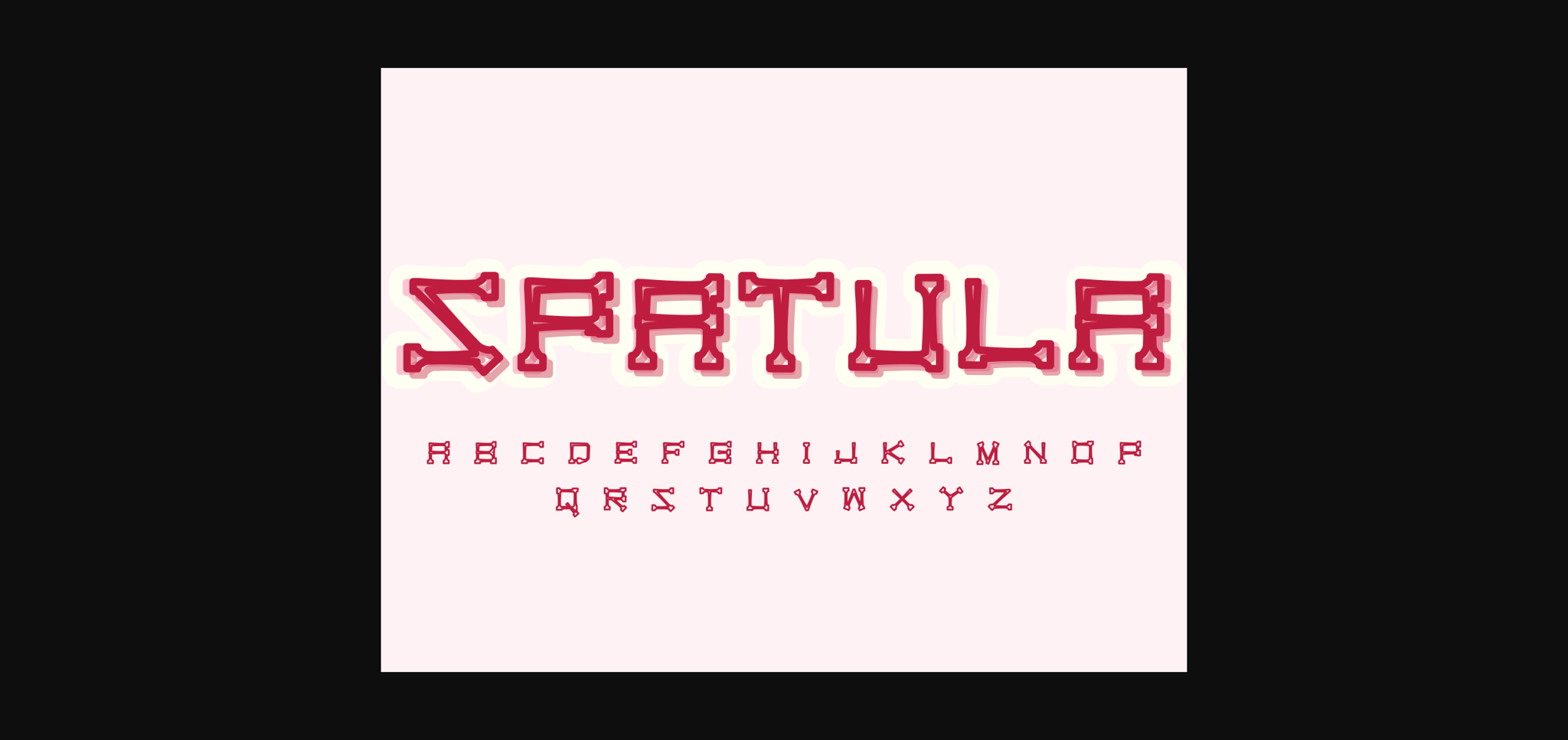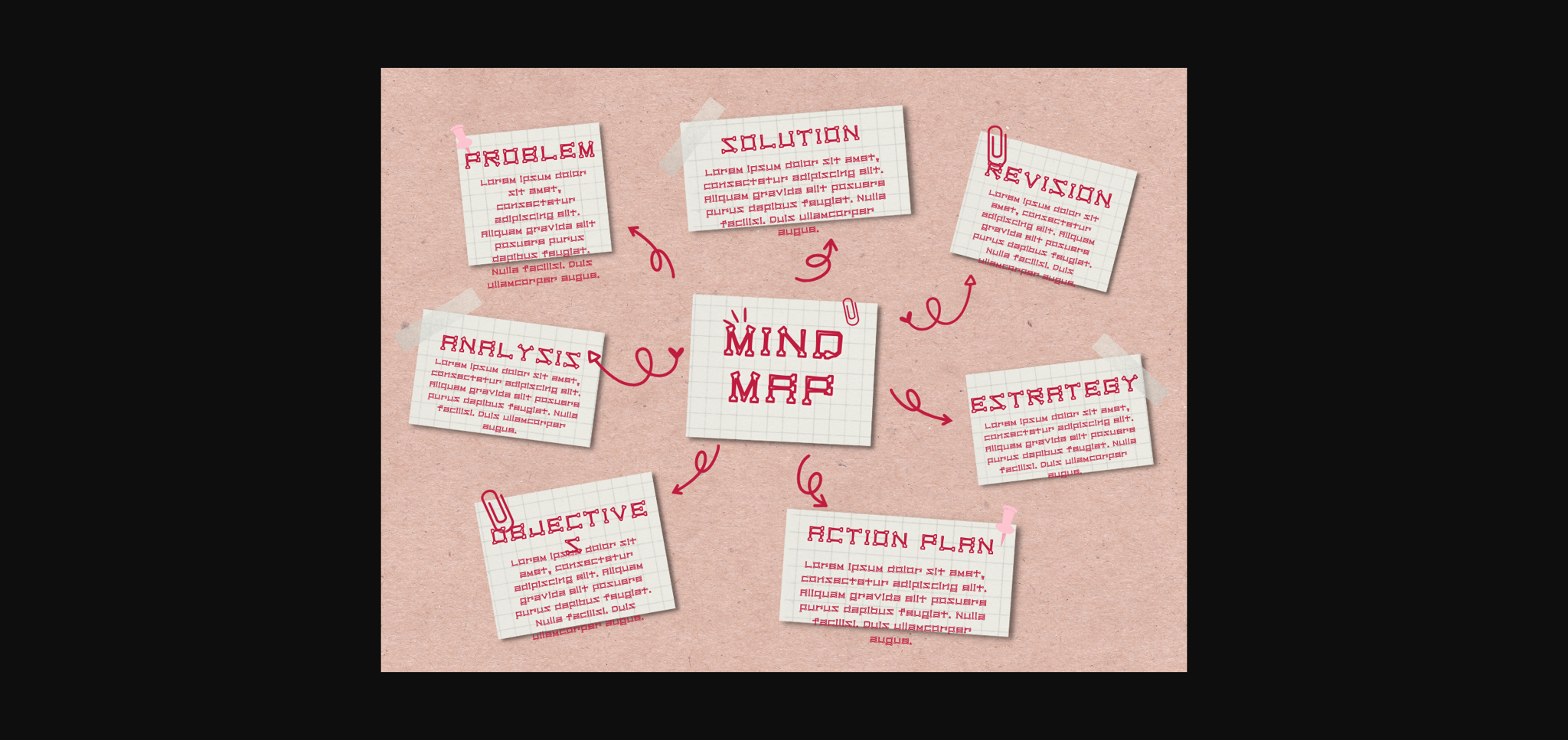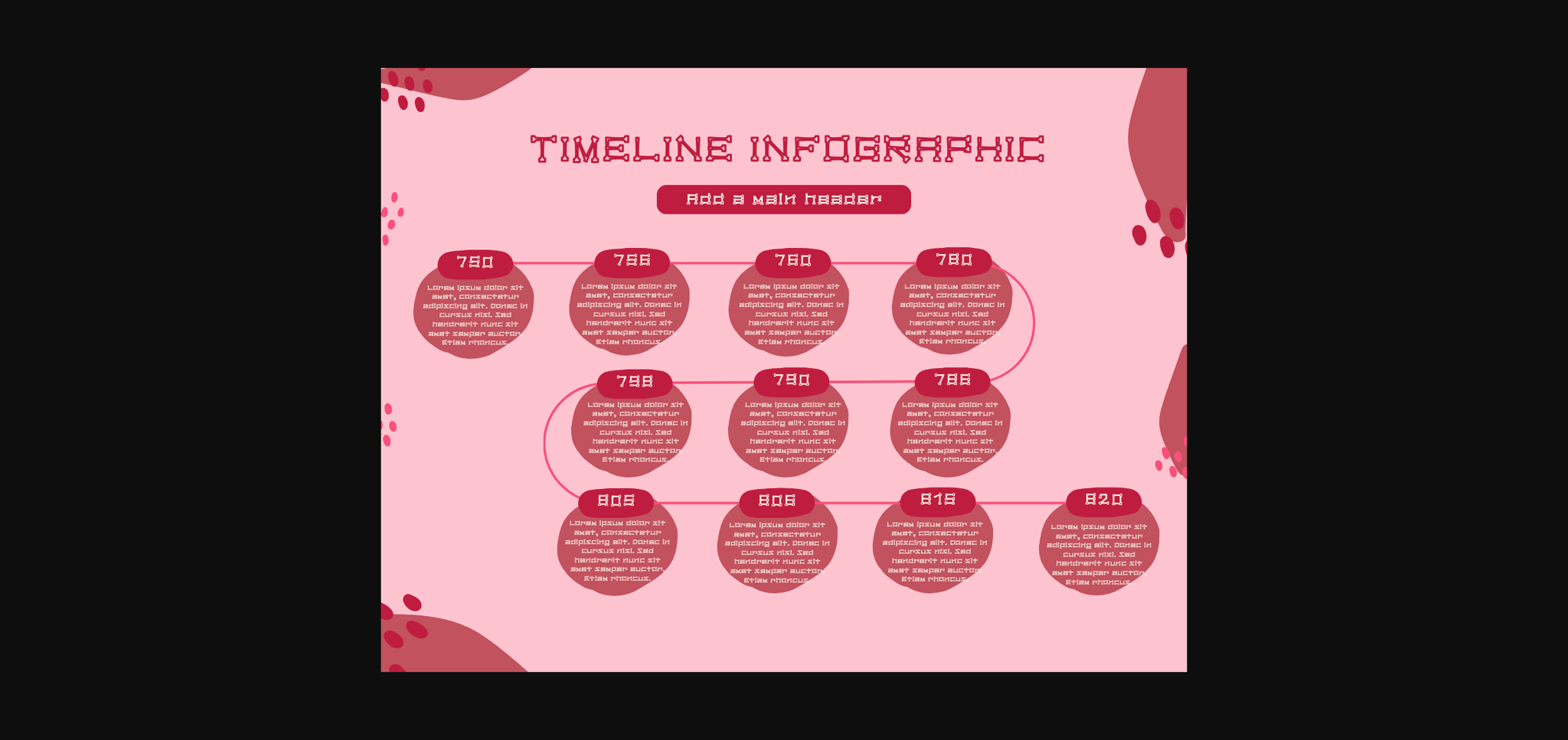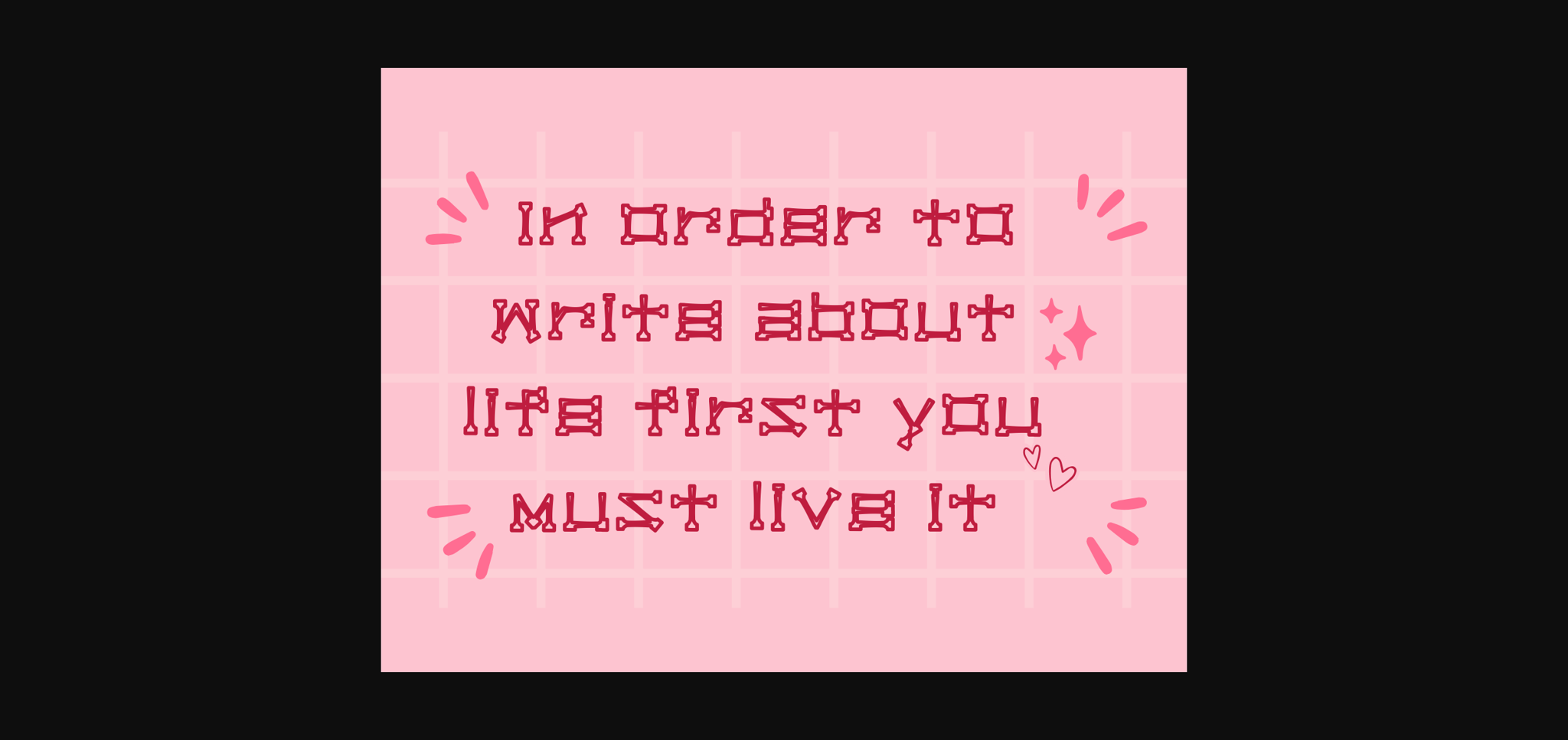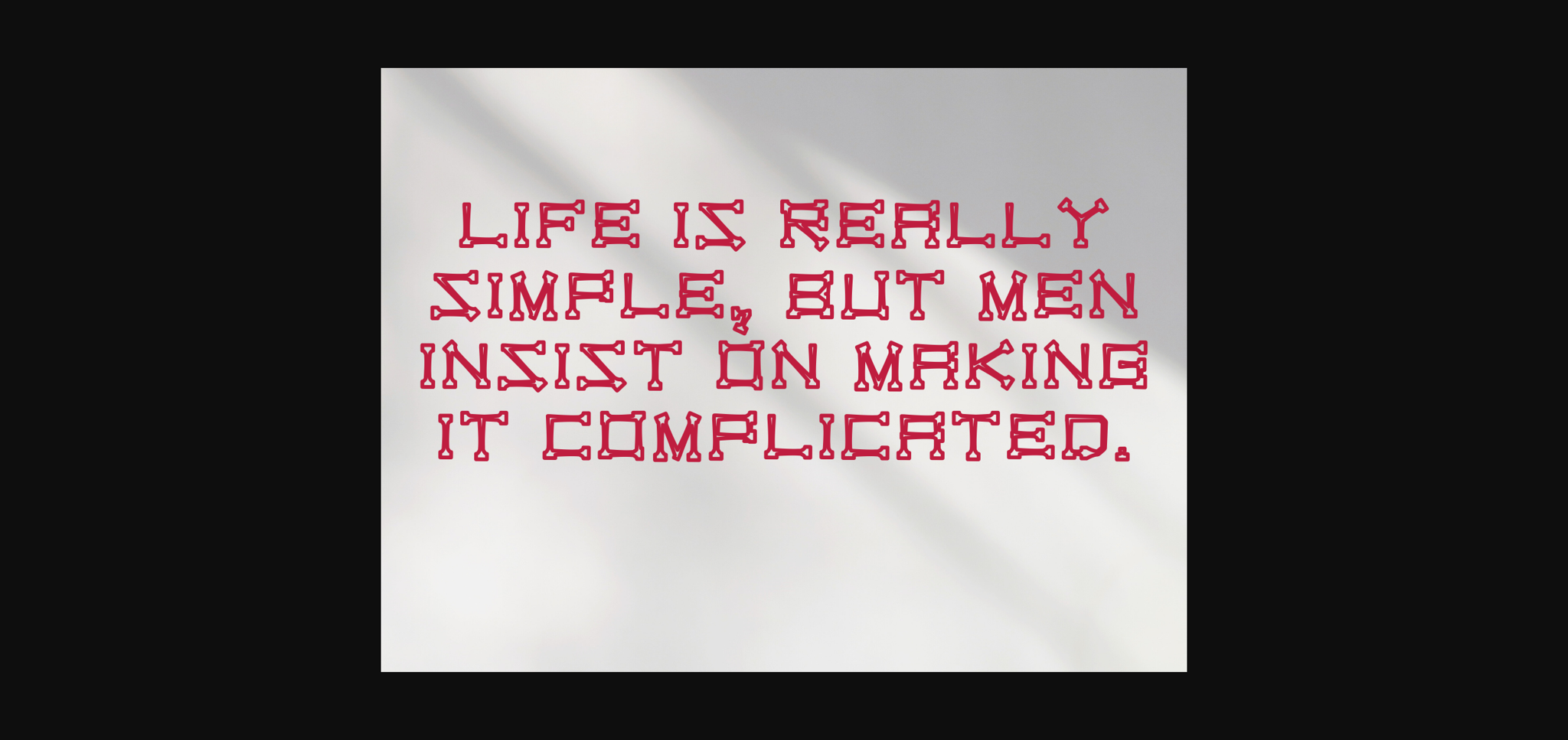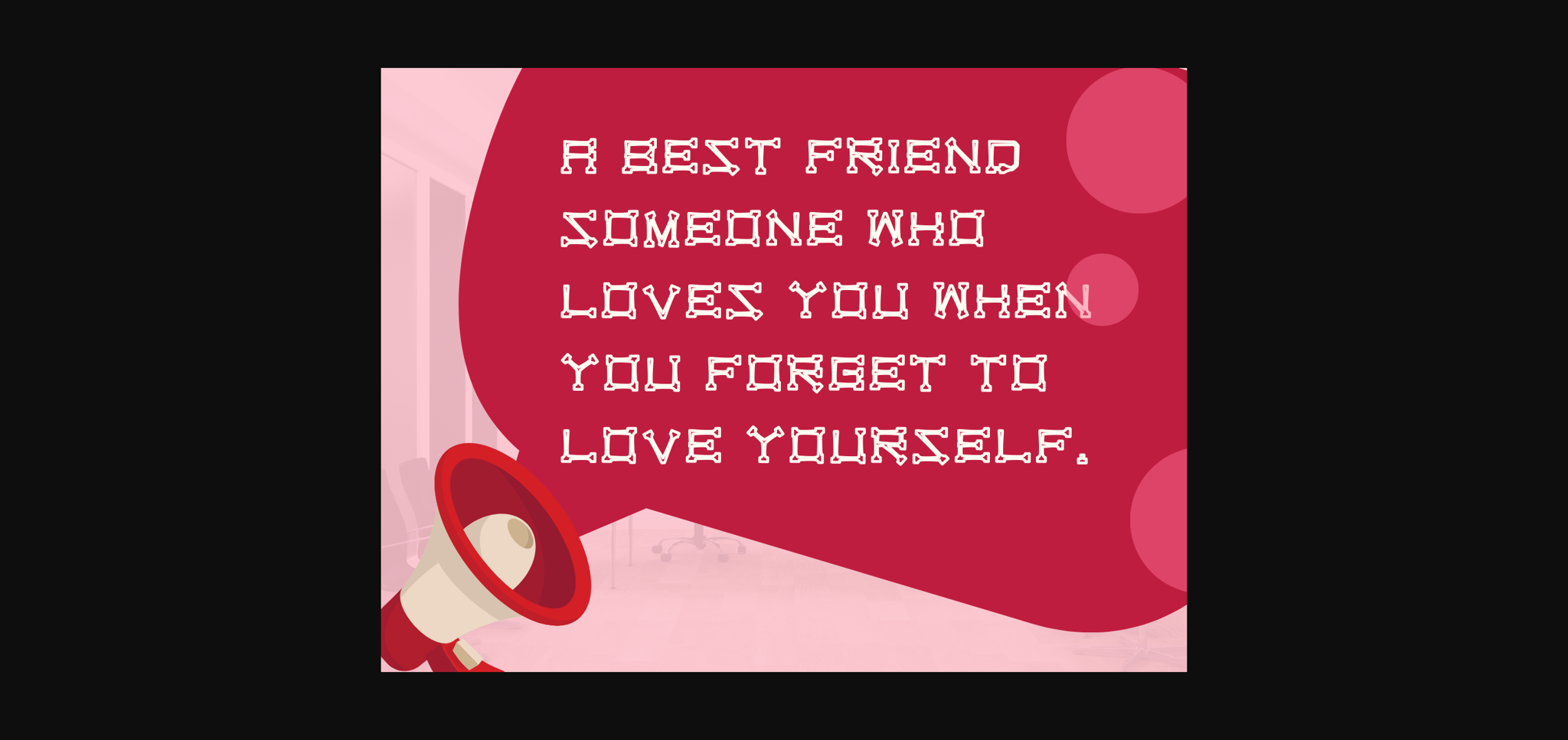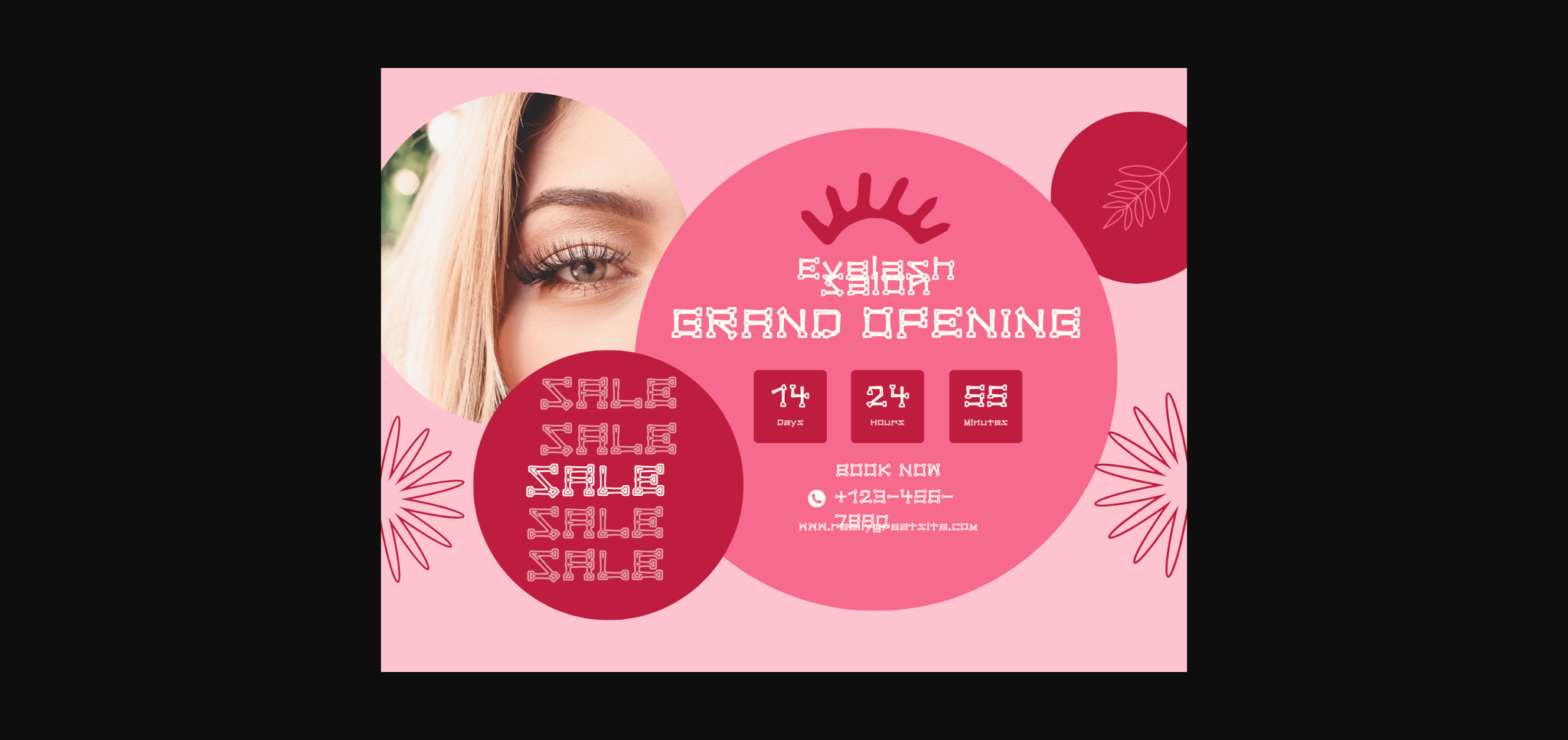
Spatula Font
About Spatula Font
Spatula is a fun and friendly handwritten font. Use it to turn any design idea into a true standout. Get inspired by its unique charm and create lovely designs.